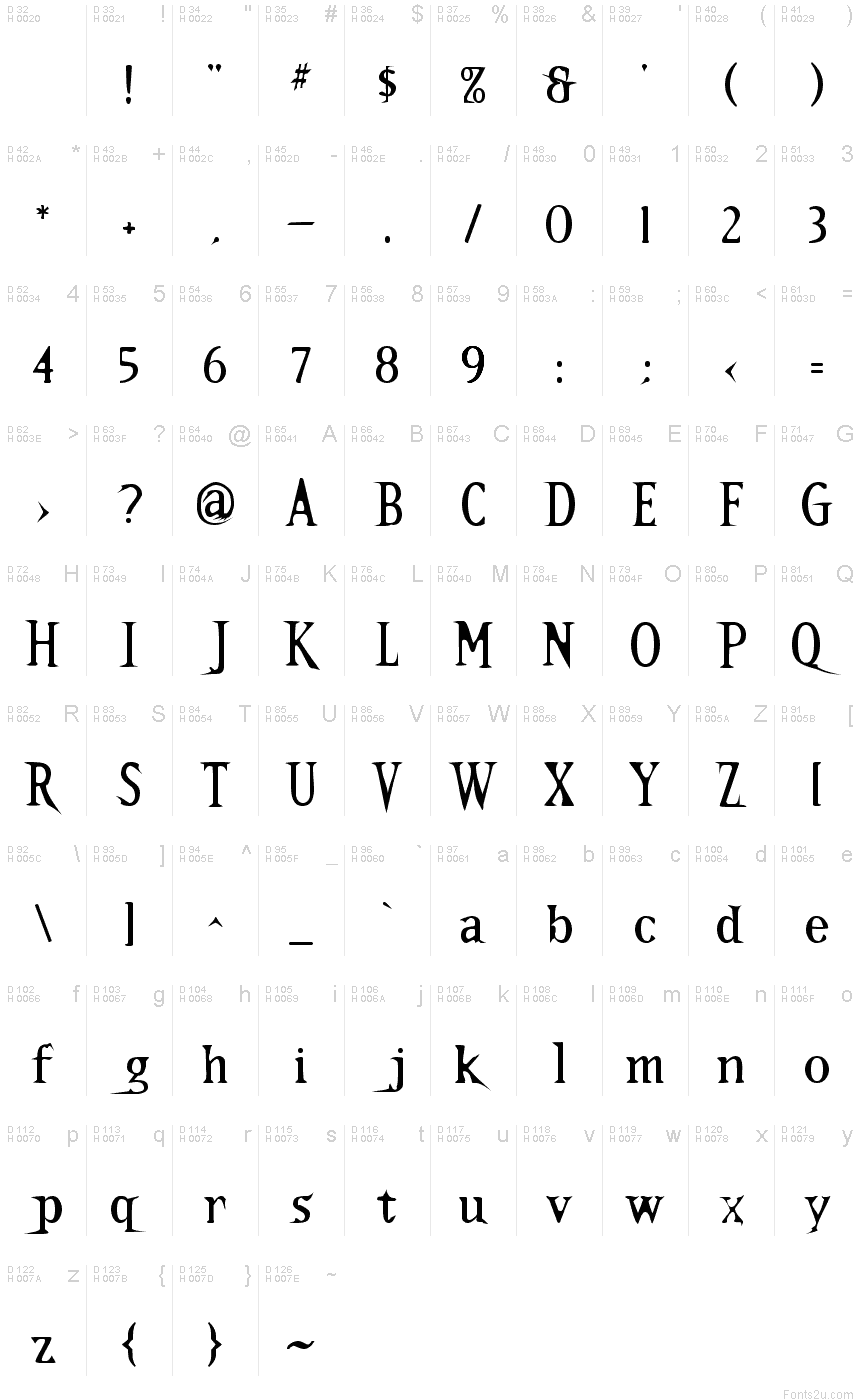
Kallamar Stout
Kallamar Stout font by Omega Font Labs is a free retro serif typeface with a wonderfully inky, stout presence. Thick, sculpted curves meet sharp, tapering points, giving each letter a slightly gothic, poster-like weight that feels pulled from an old playbill or record sleeve. The spacing is tight and purposeful, so words lock together like a bold headline stamp rather than a quiet text line.
Using Kallamar Stout, titles grab attention with a moody, vintage flair that still reads clearly at a glance. This free font shines on band posters, book covers, fantasy game logos, bar menus, event flyers, and retro packaging. It works beautifully when you set it large and pair it with a clean, understated sans serif for supporting copy, letting Kallamar Stout handle the drama while the partner font keeps everything readable.